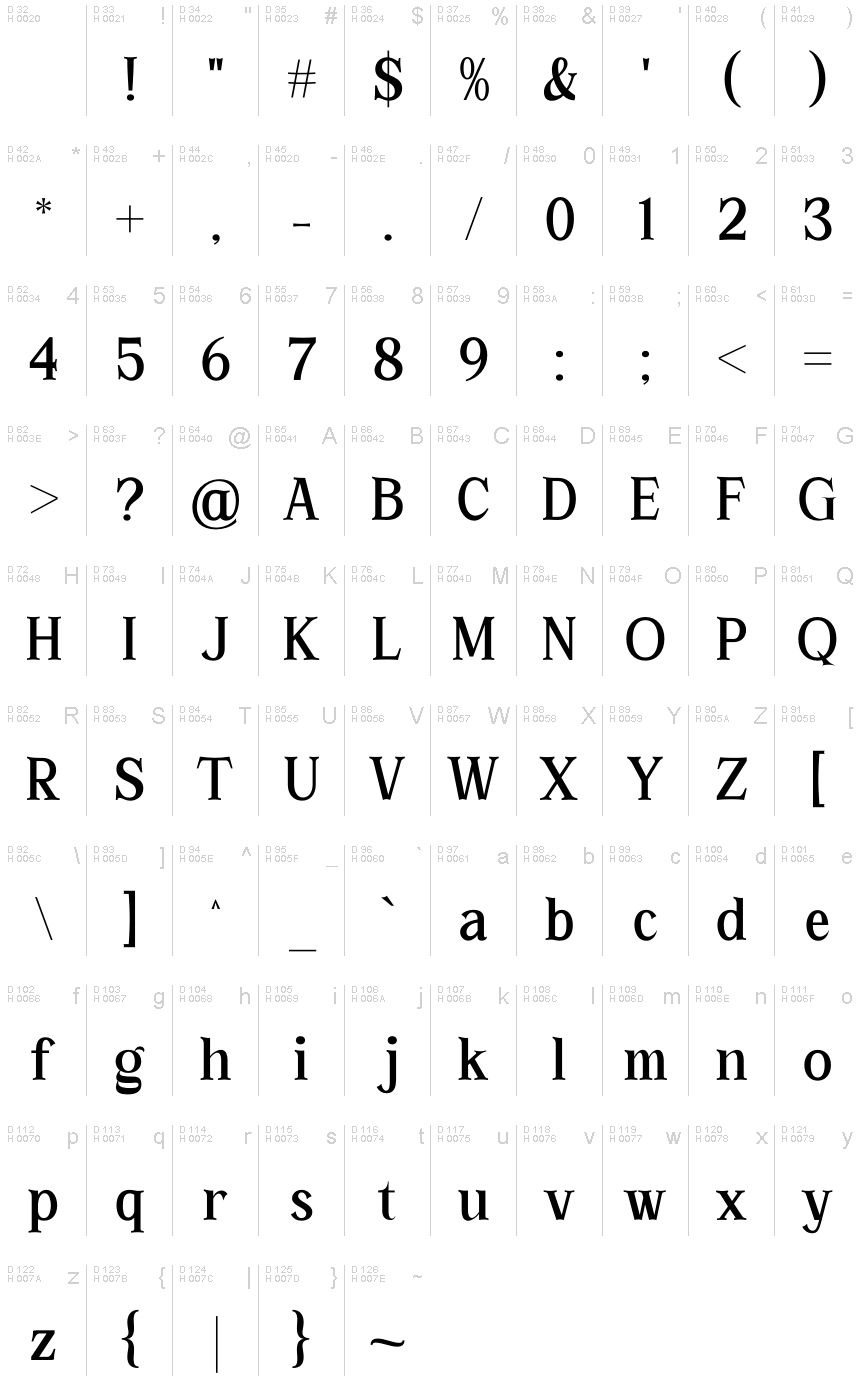
ORTUSELA
Ortusela, a captivating display font crafted by Storytype Studio, exudes a captivating retro allure. The bold, striking letterforms create an impactful visual presence, evoking a sense of timeless elegance and vintage charm. Ortusela's distinct character is defined by its pronounced serifs, elegant curves, and a harmonious balance between modern and nostalgic elements.
This versatile font lends itself beautifully to a wide range of design applications, from eye-catching headlines and impactful branding to vintage-inspired editorial layouts and retro-themed product packaging. Ortusela's strong personality and vintage-inspired aesthetic make it an ideal choice for projects that seek to convey a sense of heritage, authenticity, or a timeless aesthetic.